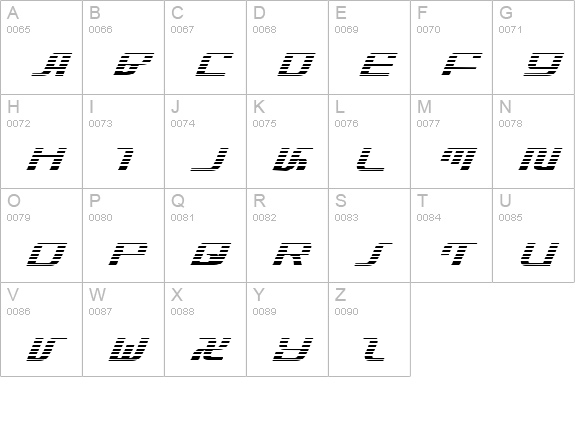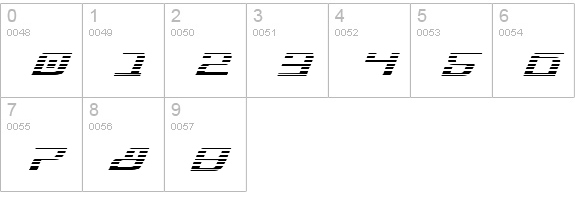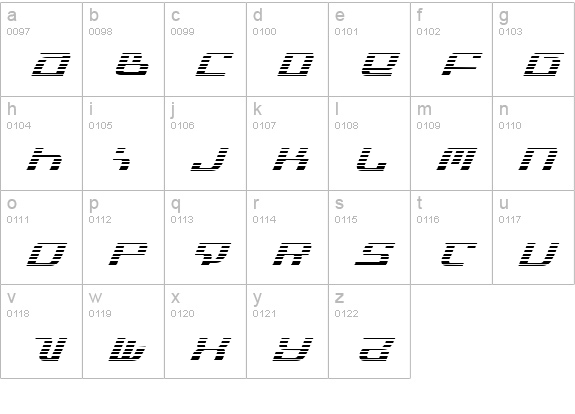
The Infinity Formula Gradient Ital font is a striking display typeface that exudes a sense of elegance and modernity. Its unique gradient design adds a dynamic and eye-catching element to any project, making it perfect for headings, logos, and other creative applications. The sleek and futuristic appearance of this font makes it a versatile choice for both digital and print designs. Best of all, the Infinity Formula Gradient Ital font is available for free download at FontsMarket.com. This means you can easily add this stylish typeface to your collection without any cost, making it a valuable asset for designers looking to elevate their work with a touch of sophistication. Don't miss out on the opportunity to enhance your projects with this stunning font that is both visually captivating and readily accessible.